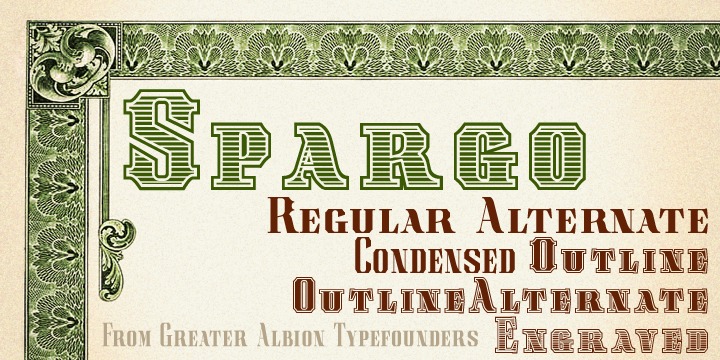
• Spargo
Spargo is inspired by 20s and 30s American typefaces, often seen on share certificates and other securities. Spargo is offered in six all capitals display typefaces. Bring a touch of inter-war America to your next design project!